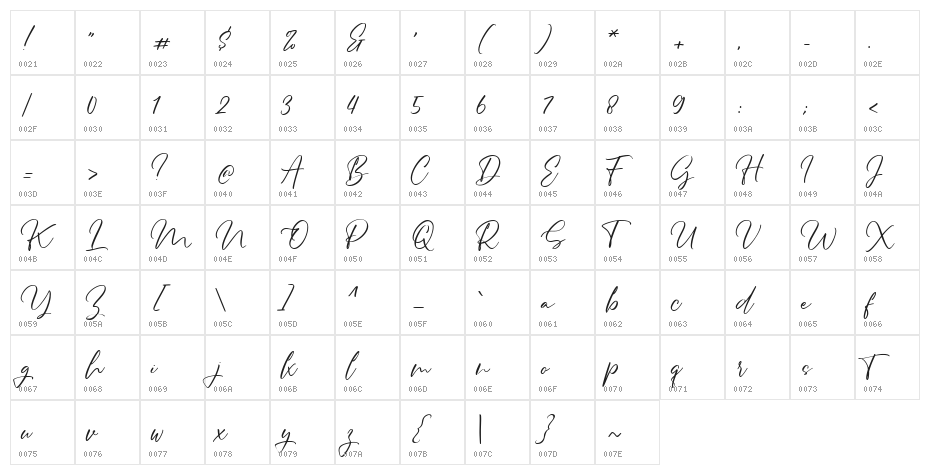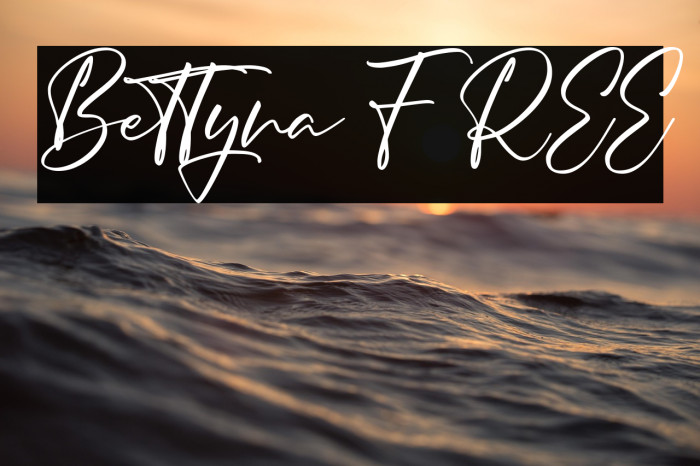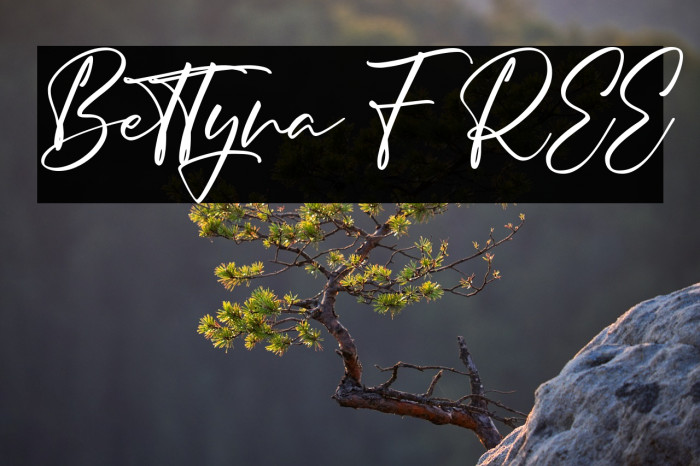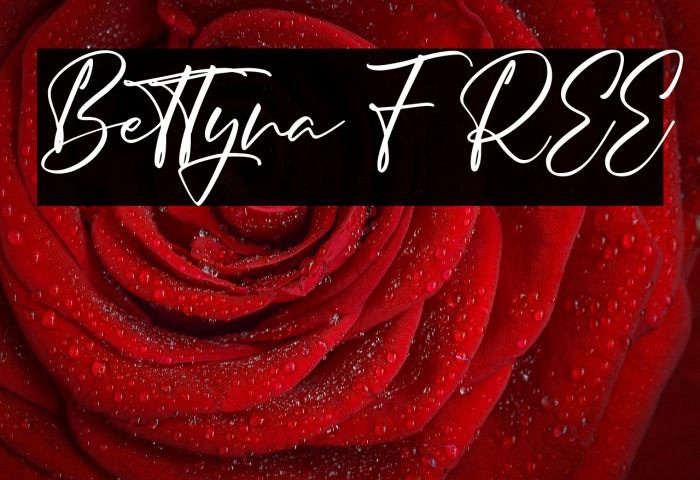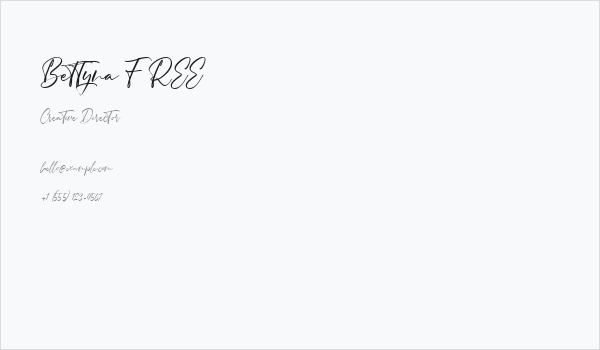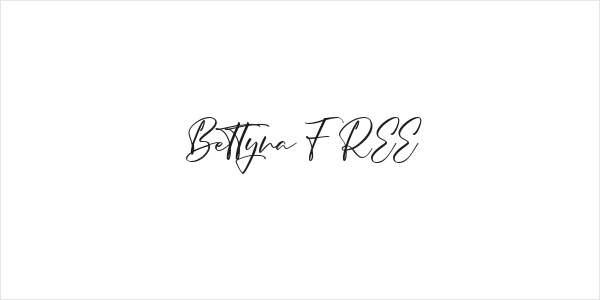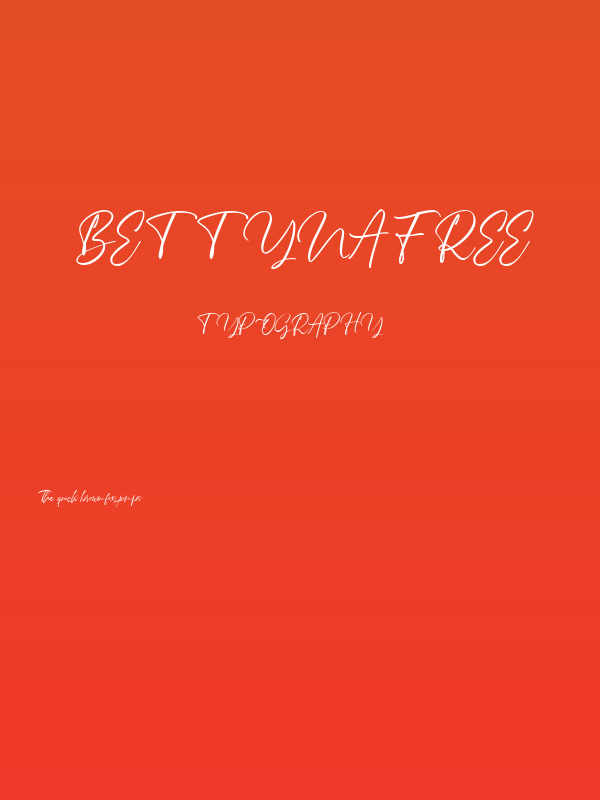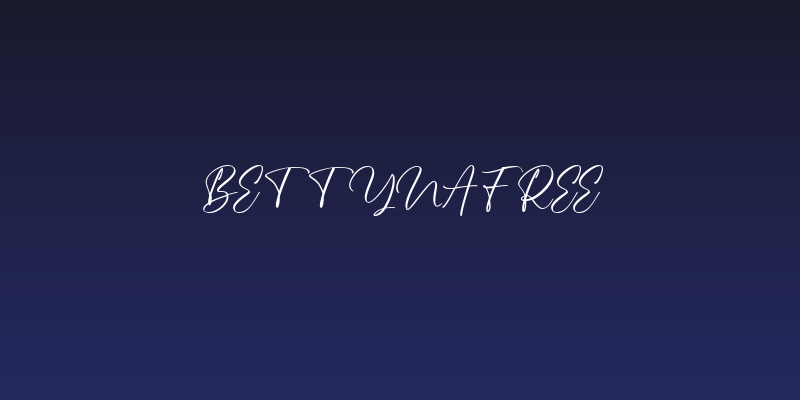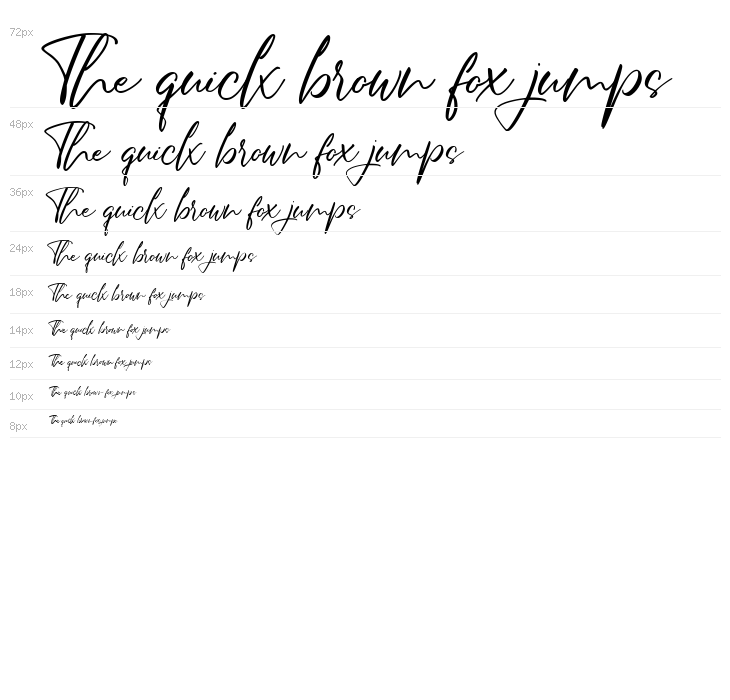
Bettyna FREE Font
Bettyna FREE Description
This elegant script font features a flowing, cursive style with a modern touch. The characters are connected, giving it a handwritten appearance, perfect for adding a personal touch to any design. The uppercase letters are slightly more formal, while the lowercase letters maintain a casual, yet sophisticated look. The numerals and special characters are consistent with the overall style, ensuring a cohesive appearance across all text. The font's delicate strokes and smooth curves make it ideal for projects that require a touch of elegance and refinement.
| Proposed Projects | Ideal for wedding invitations, greeting cards, branding, and elegant logos. |